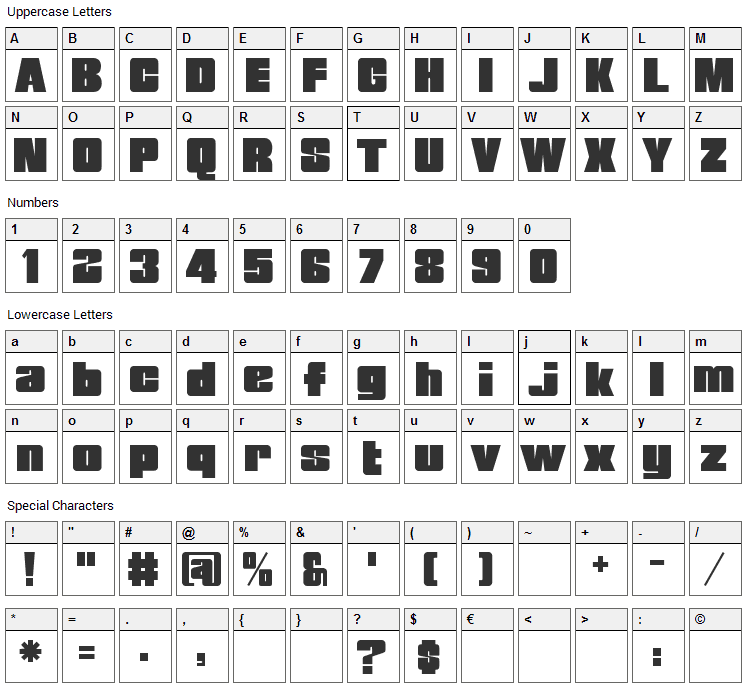
Breakaway ML Font
Font Name:Breakaway ML
Developer:Mike Lynch
Category:Techno > Various
Based on the typeface used for the title of the 1975 TV show SPACE:1999